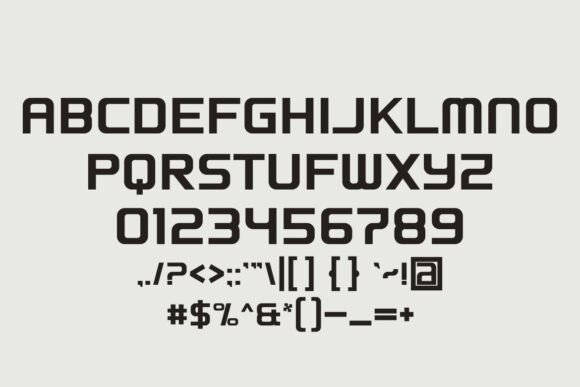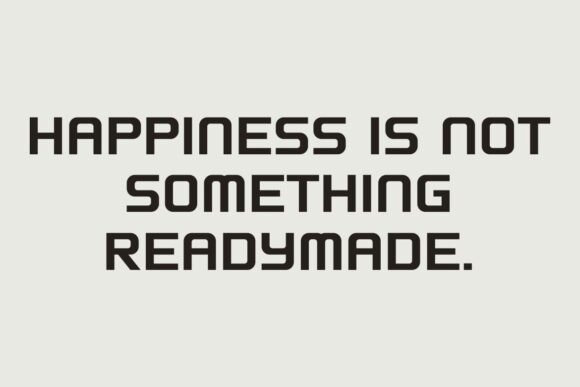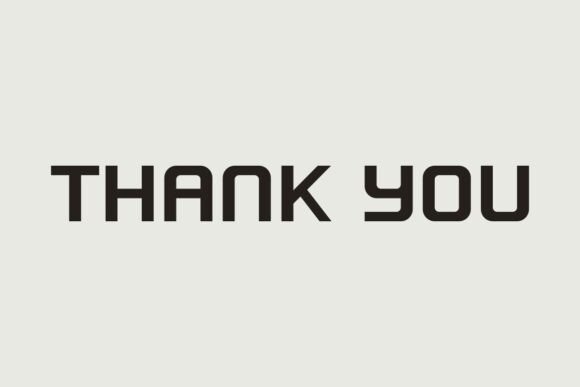
Candheld Font: Elevate Your Designs with a Bold and Assertive Sans Serif Font
Are you tired of using the same old fonts in your designs? Look no further than Candheld, a bold and assertive sans serif font that’s sure to take your creations to the next level. Whether you’re a designer, crafter, or simply someone who loves to dabble in typography, Candheld is an incredible asset to have in your font library.
The Power of Sans Serif Fonts
Sans serif fonts have become increasingly popular in recent years, and for good reason. They offer a clean and modern aesthetic that’s perfect for a wide range of design applications, from digital media to print materials. And among sans serif fonts, Candheld stands out for its bold and assertive personality.
What Makes Candheld Special?
Candheld is more than just a font – it’s a statement. Its bold and assertive design makes it perfect for headlines, titles, and any other text that needs to grab attention. But what really sets Candheld apart is its versatility. No matter the topic or theme of your design, Candheld is sure to fit right in. Whether you’re creating a bold and edgy design or something more subtle and understated, Candheld is the perfect choice.
Key Features of Candheld
- Bold and Assertive Design: Candheld is a font that demands attention. Its bold and assertive design makes it perfect for headlines, titles, and any other text that needs to stand out.
- Versatile: Candheld is a versatile font that can be used in a wide range of design applications, from digital media to print materials.
- Clean and Modern Aesthetic: Candheld has a clean and modern aesthetic that’s perfect for designers who want to create bold and edgy designs.
- Easy to Read: Despite its bold design, Candheld is easy to read, even at smaller font sizes.
How to Use Candheld in Your Designs
Candheld is a font that’s easy to use and versatile, making it perfect for a wide range of design applications. Here are a few ideas to get you started:
- Headlines and Titles: Candheld is perfect for headlines and titles, where its bold and assertive design can really make an impact.
- Logos and Branding: Candheld can be used to create bold and memorable logos and branding materials.
- Posters and Flyers: Candheld is a great choice for posters and flyers, where its bold design can really grab attention.
- Digital Media: Candheld can be used in digital media, such as social media graphics, videos, and presentations.
| Font Name | Candheld Font |
| Author | Kenrichi |